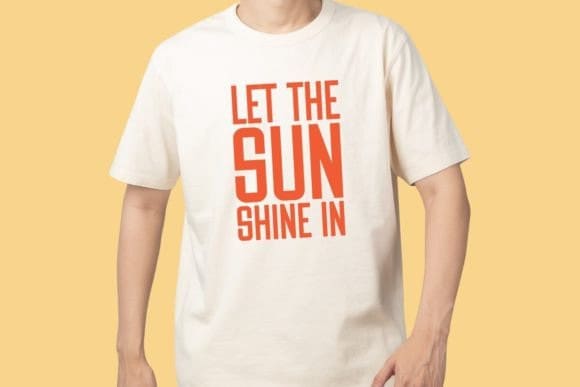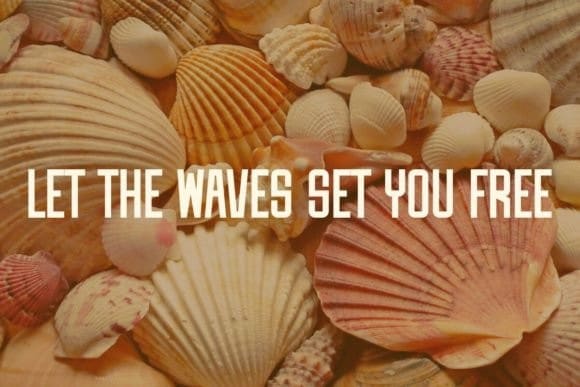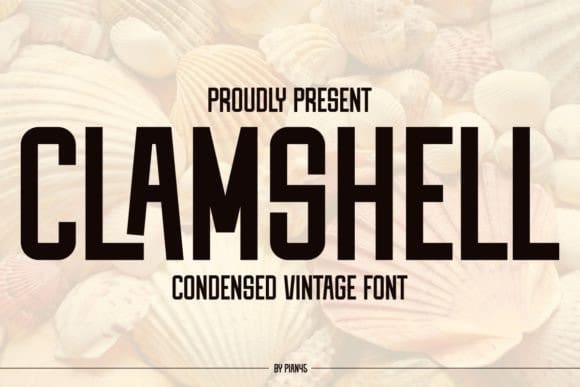
Clamshell Sans Font
Clamshell Sans Font by Pian45 18,885 downloads
Clamshell Sans Font
Clamshell Sans Font, a condensed vintage sans-serif font that embodies the essence of timeless sophistication. With its clean lines and compact design, it’s perfect for creating impactful headlines, retro posters, and stylish branding. Add a touch of classic elegance to your designs with Clamshell.